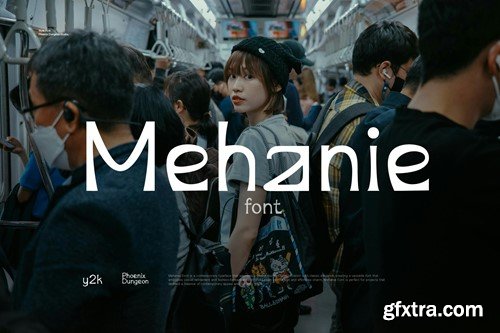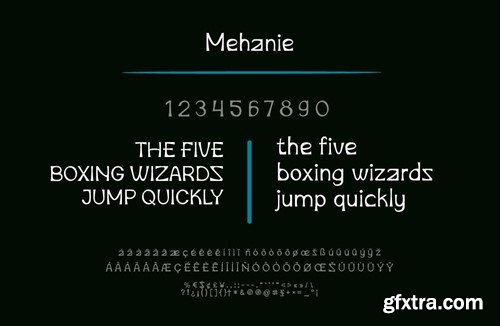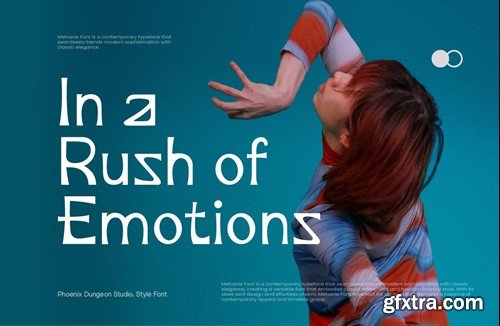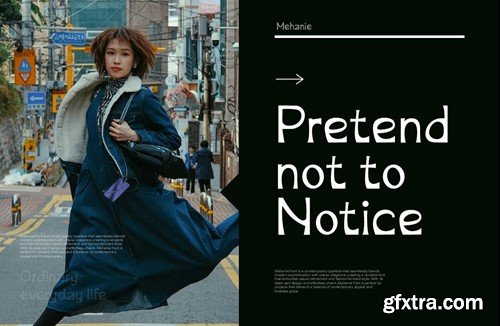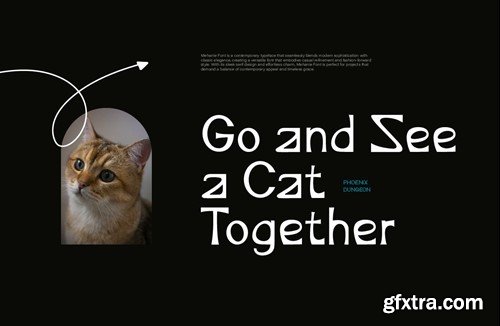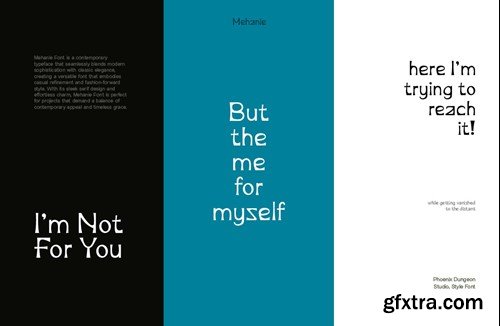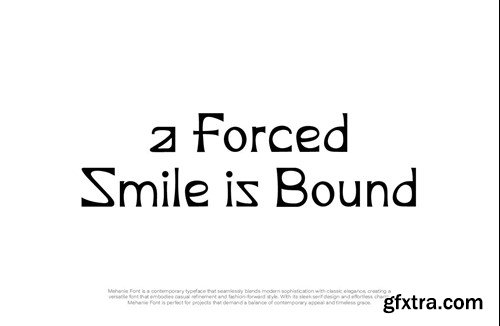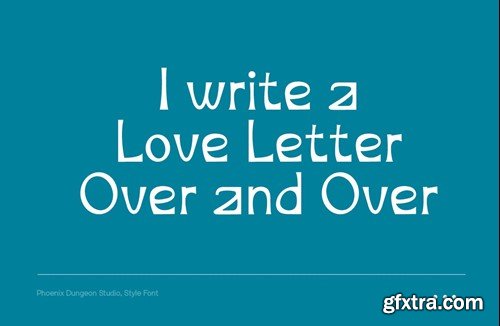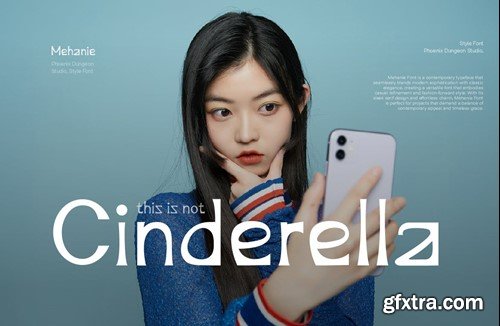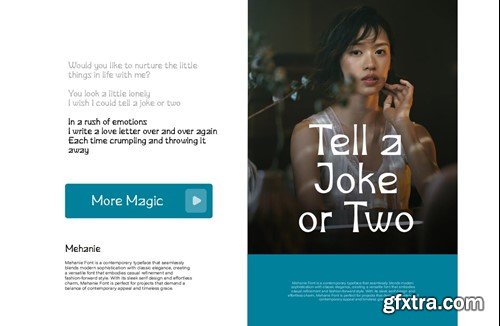
Mehanie Font 2YXRAKN
Mehanie Font is a contemporary typeface that seamlessly blends modern sophistication with classic elegance, creating a versatile font that embodies casual refinement and fashion-forward style. With its sleek serif design and effortless charm, Mehanie Font is perfect for projects that demand a balance of contemporary appeal and timeless grace.